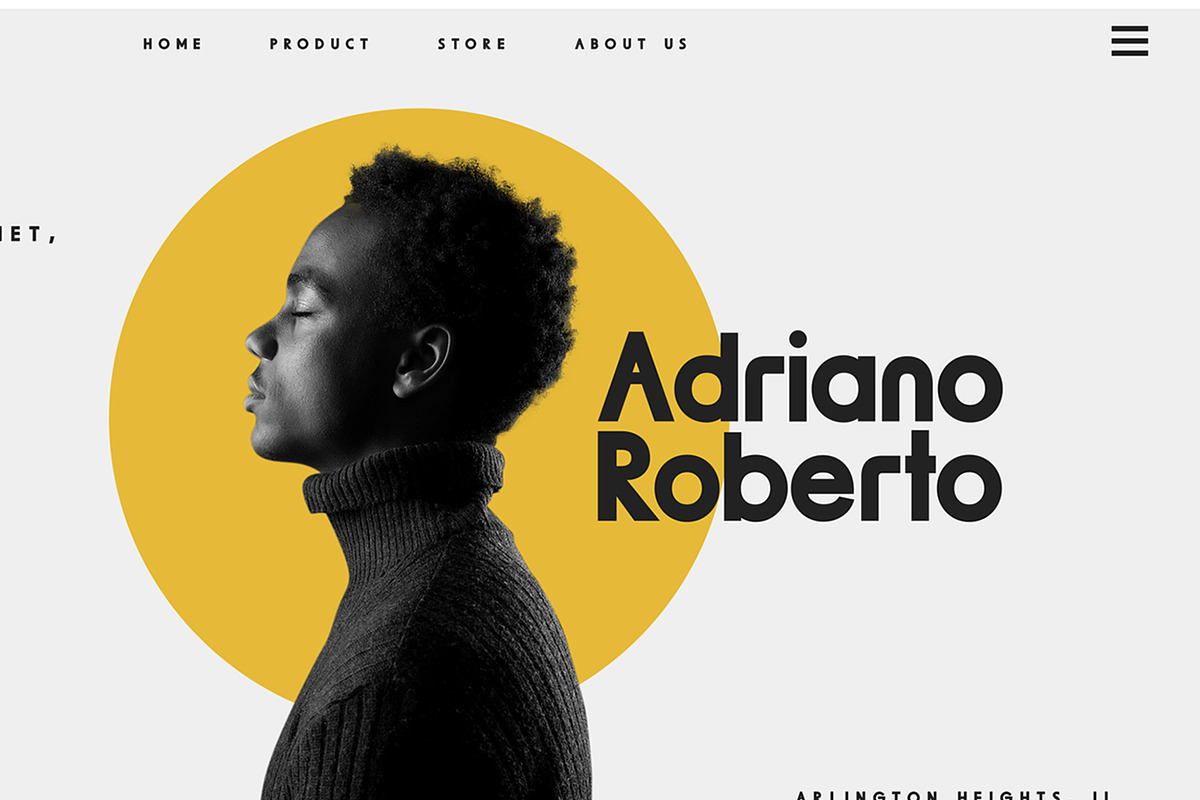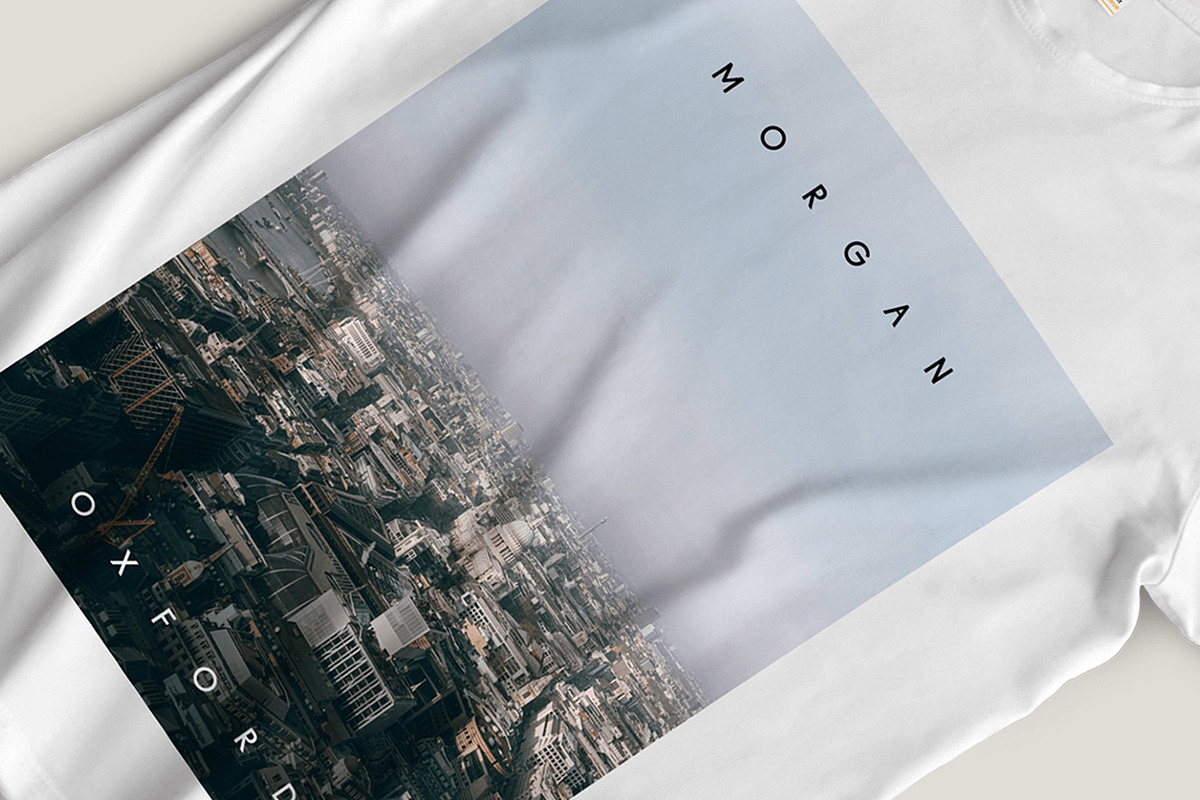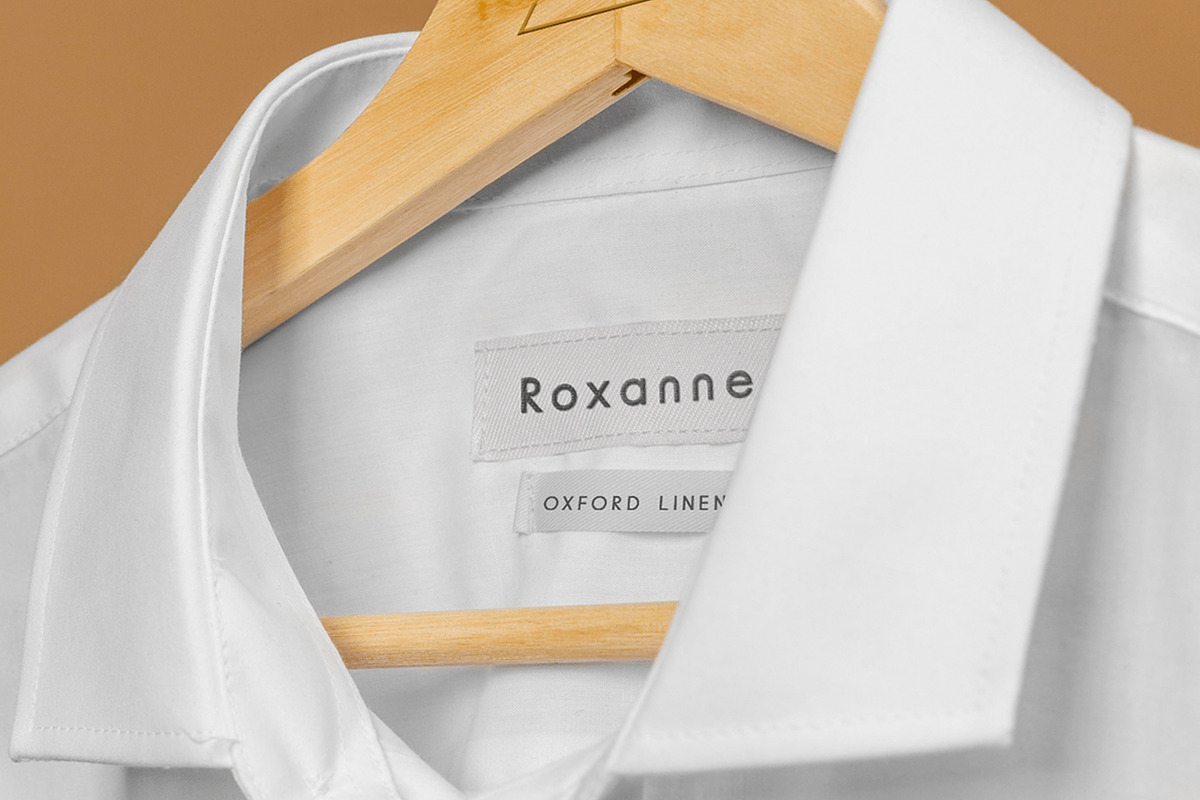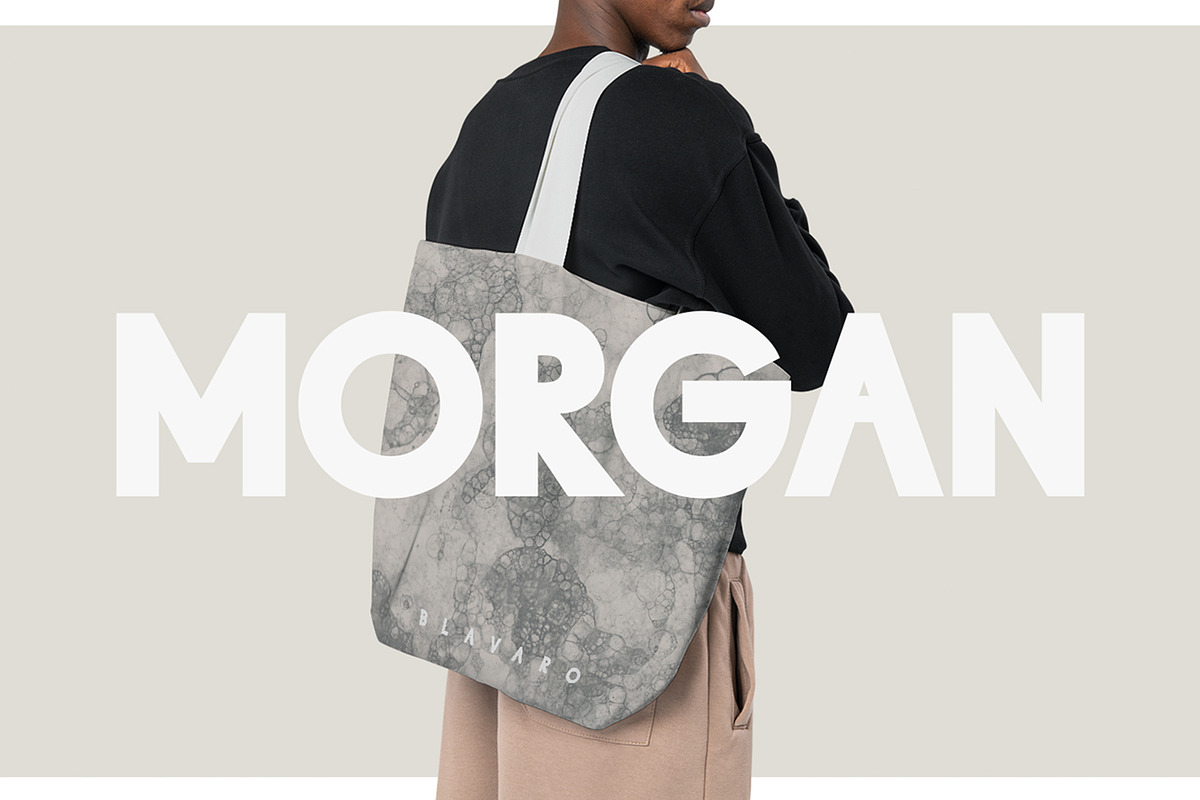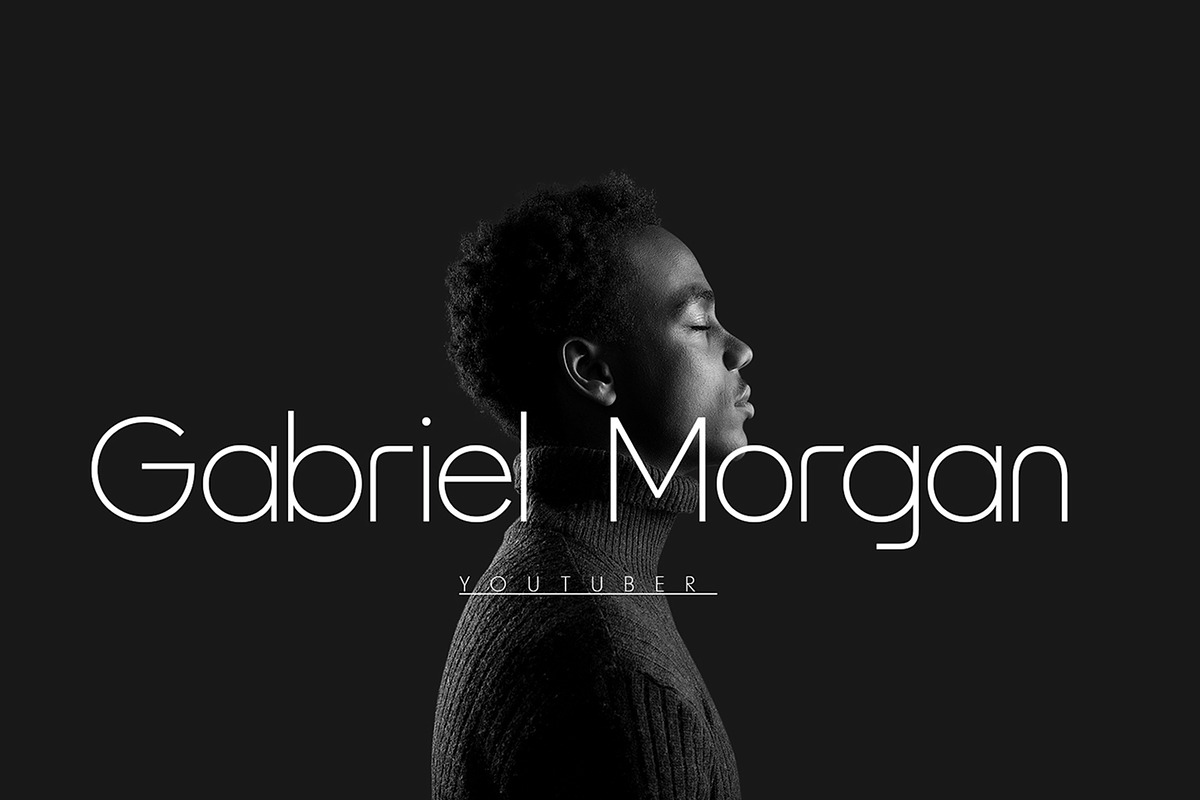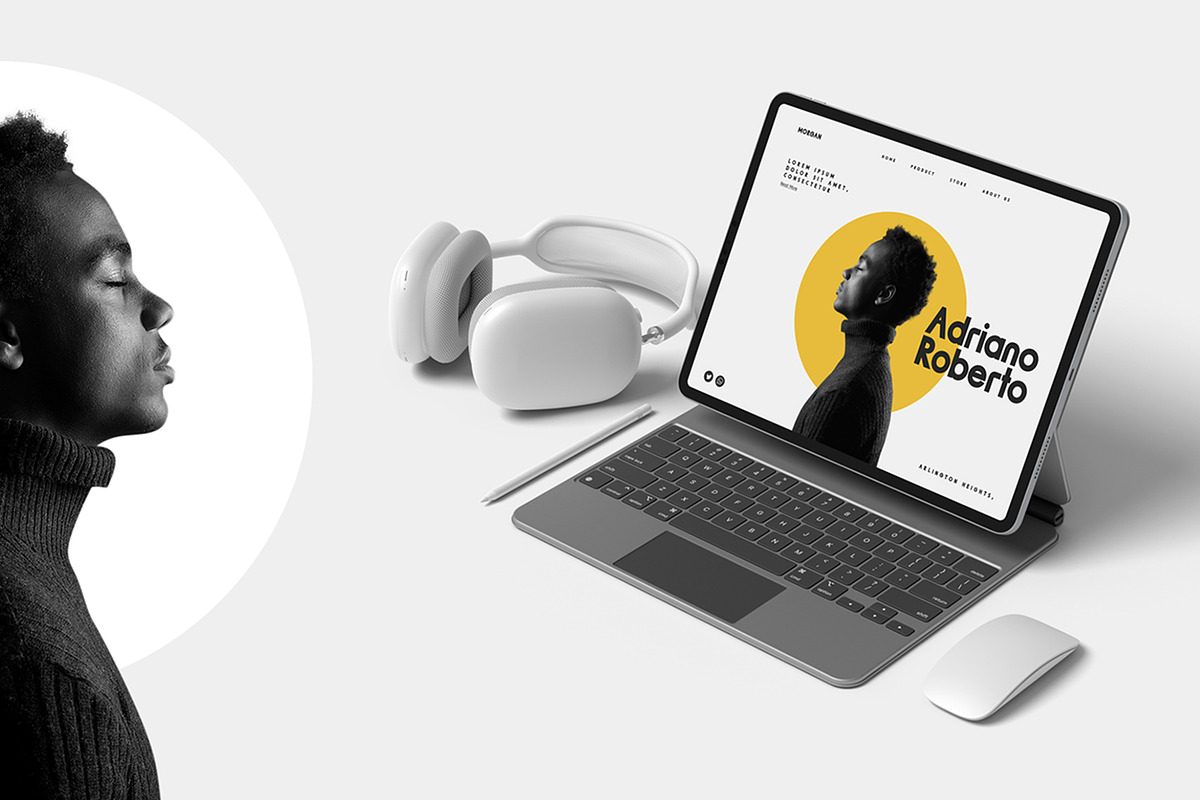
Vista Morgan
Introducing Vista Morgan. Morgan is a modern and elegant typeface, best used as a display for headings, logos, branding, magazines, product packaging, and invitations. Morgan is created in 02 styles and 09 weights. It has 18 fonts including true italics.
Morgan is perfectly suited for a wide variety of projects, such as signature, stationery, logo, wedding, typography quotes, magazine or book cover, website header, clothing, branding, packaging design, and more.